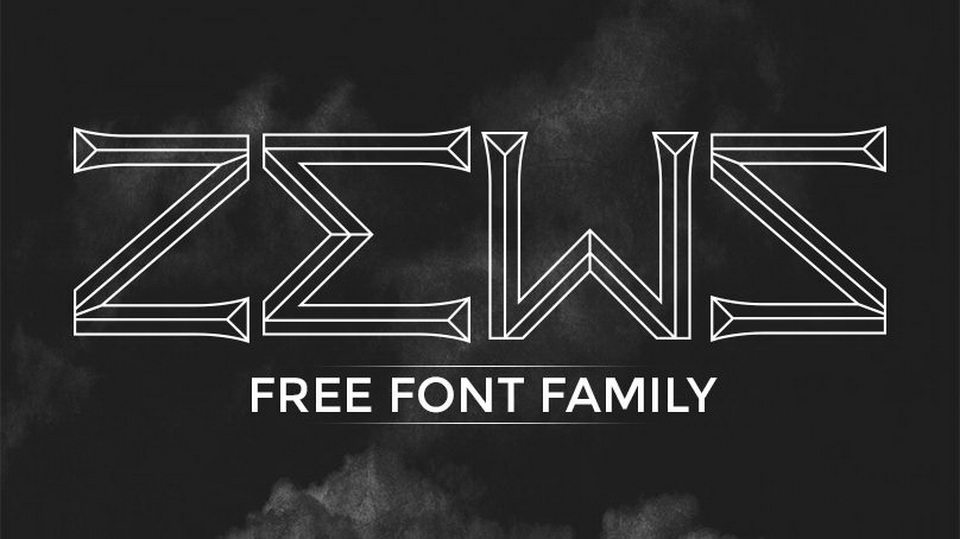
Download Zews typeface, an original display font family in Regular, Line and Lines style. Zews font is perfect for posters, branding, headlines, logos and other strong visuals.